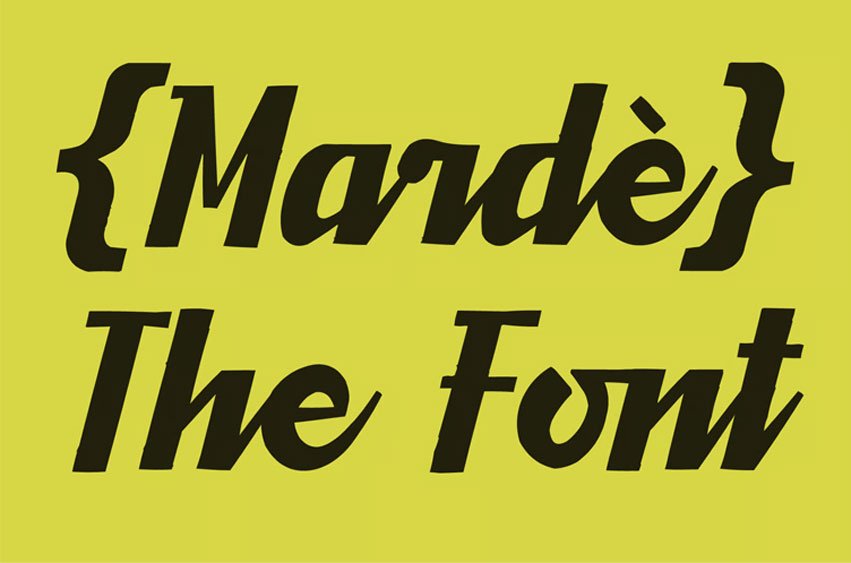
Marde Font is a bold vintage display script inspired by classic brush lettering and expressive sign painting. Slanted letterforms, sharp terminals, and confident curves create a strong visual rhythm with a distinctly handcrafted appearance, balancing retro character with clean, consistent construction.
Carefully refined for clarity and versatility, Marde features dynamic proportions, subtle organic texture, and smooth letter connections that preserve readability while emphasizing its expressive personality. The typeface includes extended Latin characters, multilingual support, complete numerals, and punctuation
- Bold Vintage Display Script
- Handcrafted Brush Texture
- Expressive Retro Character